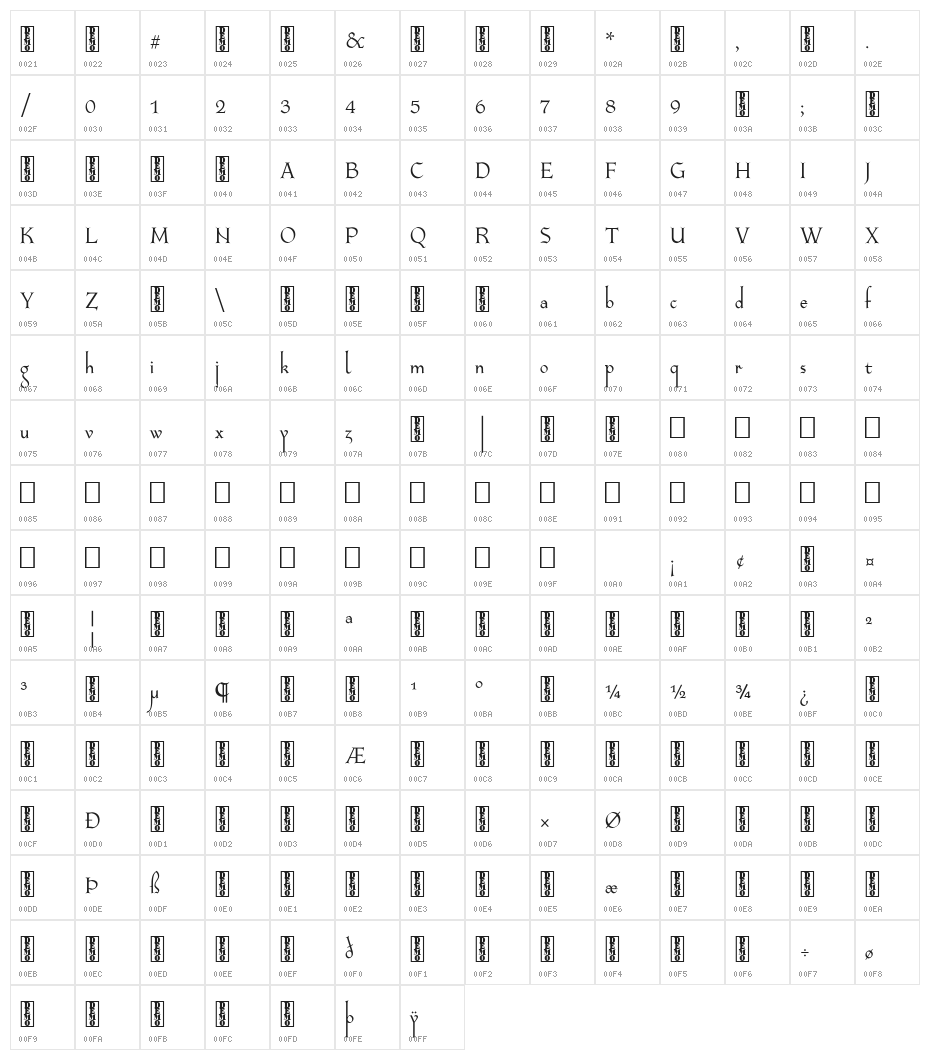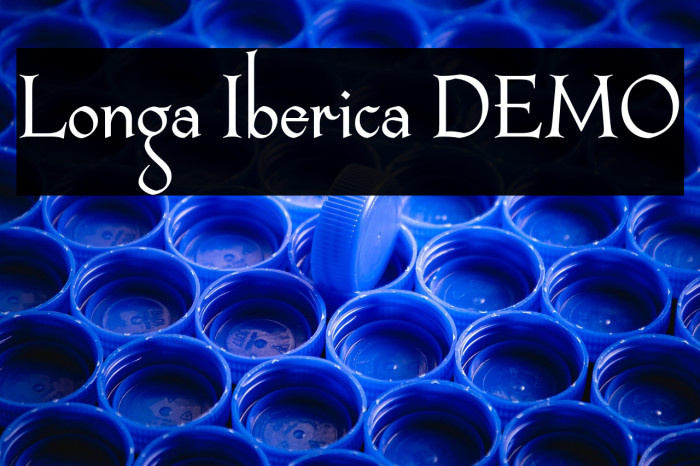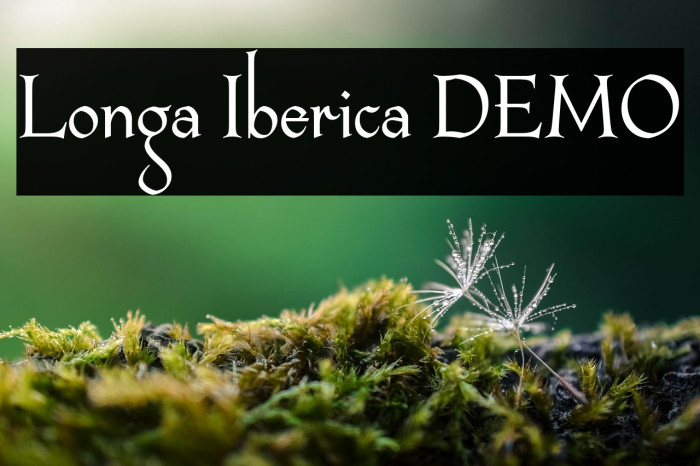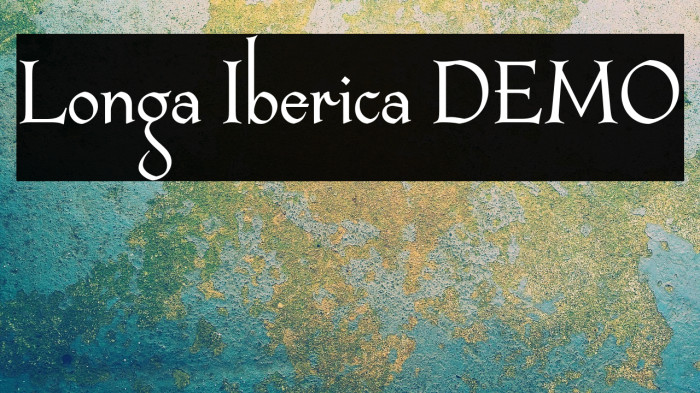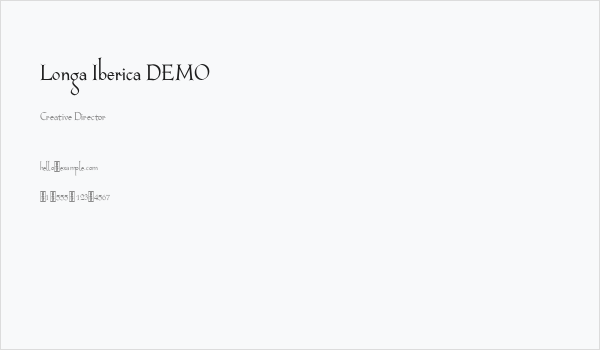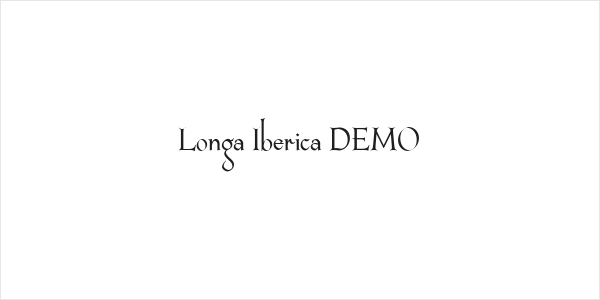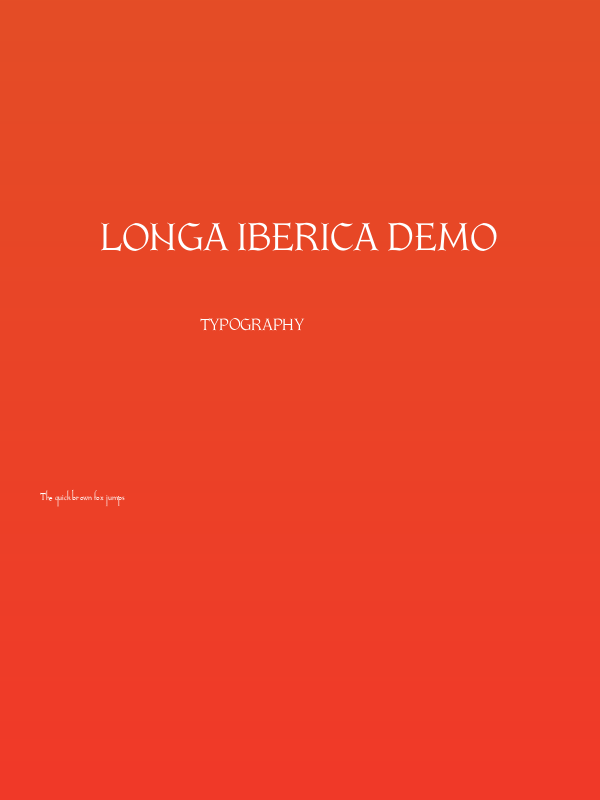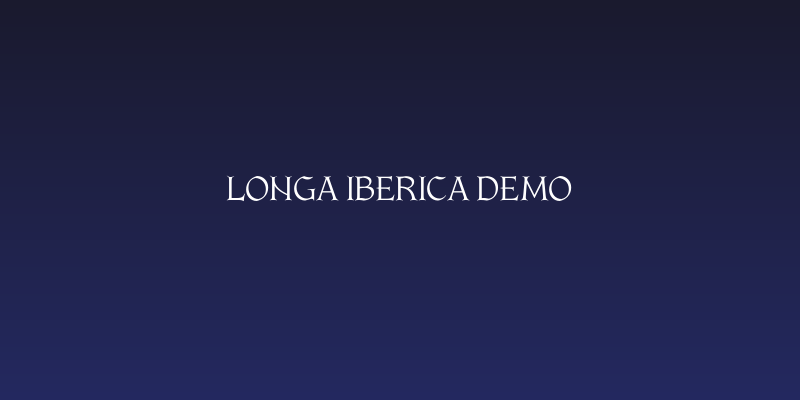
Longa Iberica DEMO Font
Longa Iberica DEMO Description
This font features a distinctive and elegant style, characterized by its sharp, angular serifs and a medieval-inspired aesthetic. The uppercase letters are bold and commanding, with a slight curvature that adds a touch of sophistication. The lowercase letters maintain a consistent style, with elongated ascenders and descenders that enhance its decorative appeal. Numbers are clear and legible, matching the overall theme. Special characters are uniquely styled, maintaining the font's cohesive look. This font is ideal for projects that require a historical or classical touch, offering both readability and artistic flair.
| Use Case | Headlines, Logos, Decorative text |
| Proposed Projects | Perfect for historical documents, book covers, invitations, and branding that requires a classical touch. |